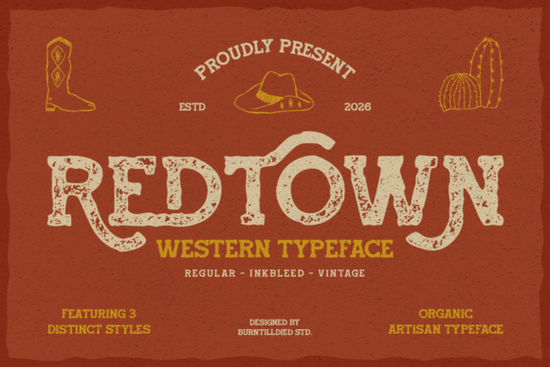
If you're looking for a bold, authentic western typeface that feels like it was carved into a saloon door, Redtown Font delivers exactly that. It’s not just another font it’s a mood, a story, and a design tool with character. Whether you’re crafting a whiskey label, designing a rodeo poster, or building a rustic brand identity, Redtown brings a grounded, vintage energy to your work.
What Makes Redtown Stand Out?
Redtown isn’t just about looks it’s about feeling. The font draws inspiration from old western signage, desert road signs, and hand-painted saloon boards. You can almost hear the creak of a wooden bar and see dust swirl in the wind as you use it. It’s built for projects that need attitude, authenticity, and a little grit.
There are three distinct styles included:
- Regular – Clean, strong, and ready to command attention. Perfect for headlines and logos where clarity matters.
- Inkbleed – Adds a raw, textured feel with subtle ink bleed effects. Great for posters and packaging that want a handmade, slightly worn look.
- Vintage – Slightly distressed with weathered edges and uneven lines. Ideal for anything with a nostalgic or historical touch.
You don’t have to choose just one mixing styles within a single design can create depth and visual interest. Try pairing the Regular style for the main headline and adding an Inkbleed version for a subtitle to give your layout more dimension.
Where Can You Use Redtown Font?
This font works across many creative projects. It’s especially strong in branding and print design, but it also fits well in digital spaces when used thoughtfully.
Here are some real-world uses:
- Whiskey or craft beer labels – gives them a frontier edge.
- Rodeo, festival, or event posters – instantly sets the scene.
- Rustic business logos – ideal for cowboy-themed shops, outdoor gear brands, or local cafes.
- Packaging designs – adds personality to boxes, bags, or stickers.
- Print-on-demand products – think mugs, t-shirts, and wall art with western flair.
Because of its bold structure and unique textures, Redtown stands out even at small sizes. That means it works well on both large banners and smaller product details.
How Does It Fit Into Your Design Workflow?
For those exploring American-style typography, Redtown fits right in with other strong slab serif fonts. If you’ve enjoyed fonts like those with a rugged, no-nonsense feel, you’ll find Redtown shares the same DNA just with more Western charm.
And if you're already using this font in your projects, you might appreciate how it complements others in the same family. For example, the Redtown Font slab serif collection offers consistent styling across different weights and variations, making it easier to build cohesive branding.
Why Designers Choose Redtown
It’s not just about style. Many creators pick Redtown because it saves time. Instead of trying to recreate a weathered, hand-crafted look with layers and textures, you get that effect built in. This means faster turnaround and more consistency across projects.
Final Thoughts
Redtown isn’t trying to be everything to everyone. It’s purpose-built for a specific vibe one that celebrates the wild west, craftsmanship, and timeless design. If your project needs a little rough-around-the-edges authenticity, this font delivers without overcomplicating things.
Whether you’re a small business owner, a crafter, or a designer working on a themed campaign, Redtown adds instant credibility and character to your visuals.
Quick checklist before you start:
- Choose the right style: Regular for clean impact, Inkbleed for texture, Vintage for aged appeal.
- Pair it with simple, neutral fonts (like sans serifs) to keep balance.
- Test how it looks at different sizes especially on print materials.
- Use it sparingly for maximum effect; it’s a standout font, not background noise.